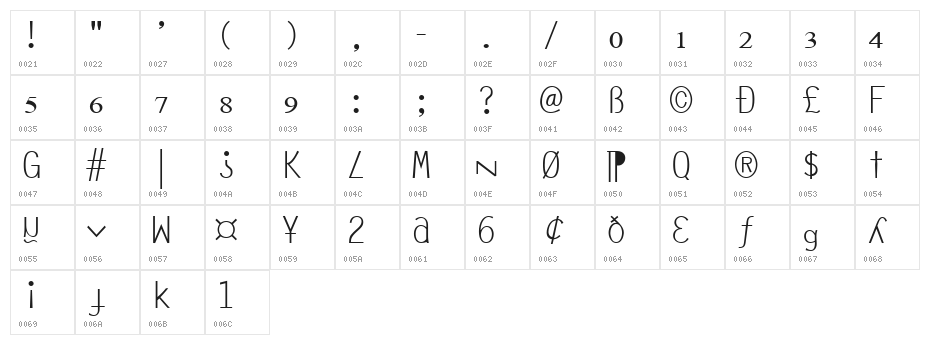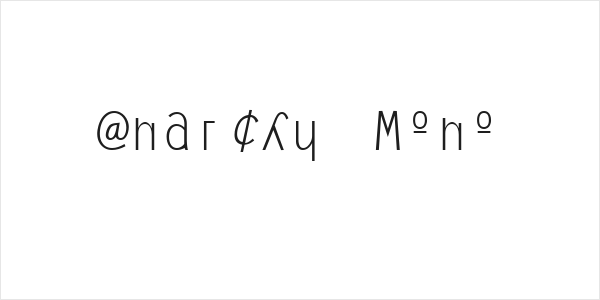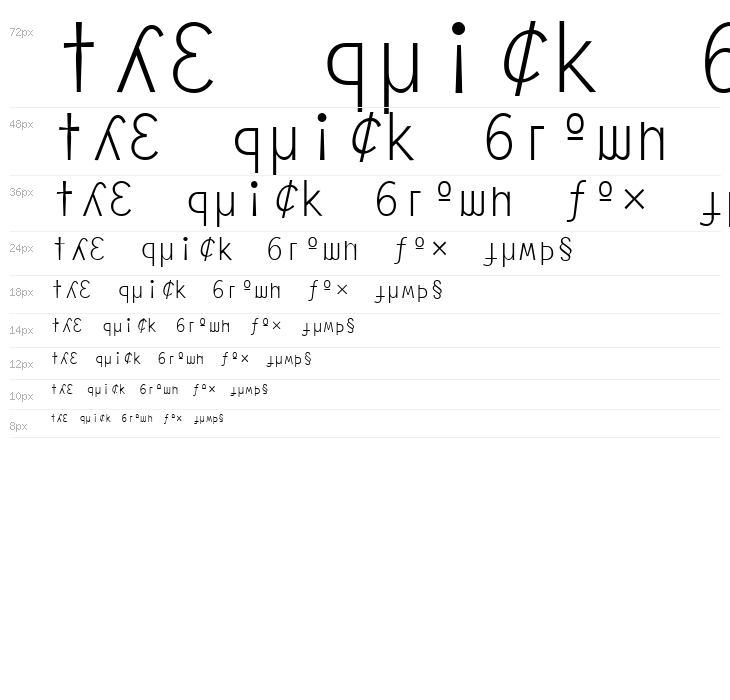
Anarchy Mono Font
Anarchy Mono Description
This font presents a unique blend of modern and experimental design elements. It features a monospaced structure with a distinctively quirky and unconventional style. The characters are crafted with a mix of straight lines and curves, giving it a playful yet structured appearance. The uppercase letters are bold and assertive, while the lowercase letters maintain a consistent height and width, contributing to its monospaced nature. The numerals and special characters are designed to complement the overall aesthetic, making it suitable for creative and avant-garde projects. The font's eccentricity is highlighted by its unusual character shapes and the inclusion of diverse symbols, making it a standout choice for those looking to make a statement.
| Overall Style | Modern, Experimental |
| Use Case | Logos, Digital Art, Creative Projects |
| Proposed Projects | Ideal for creative projects, digital art, experimental designs, and unique branding. |